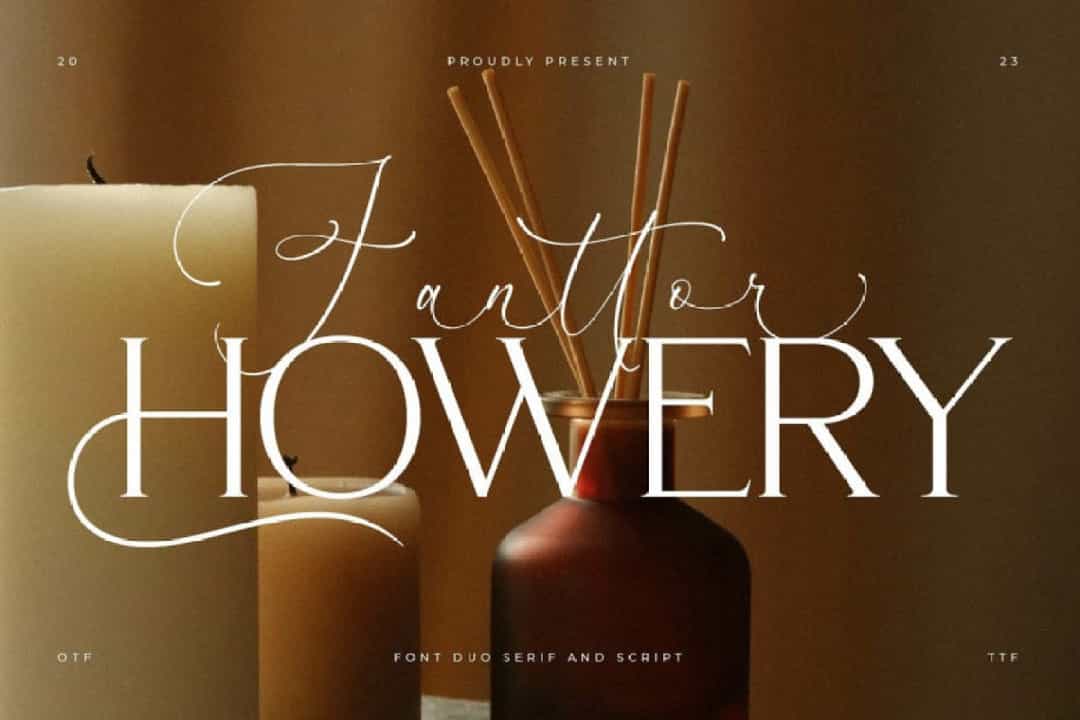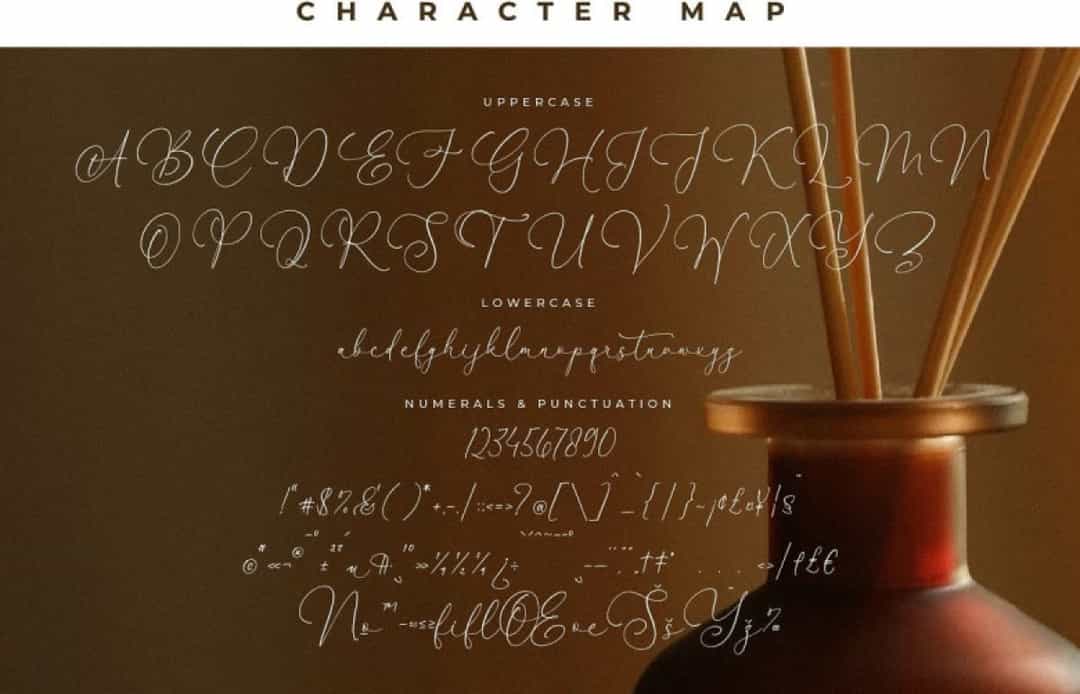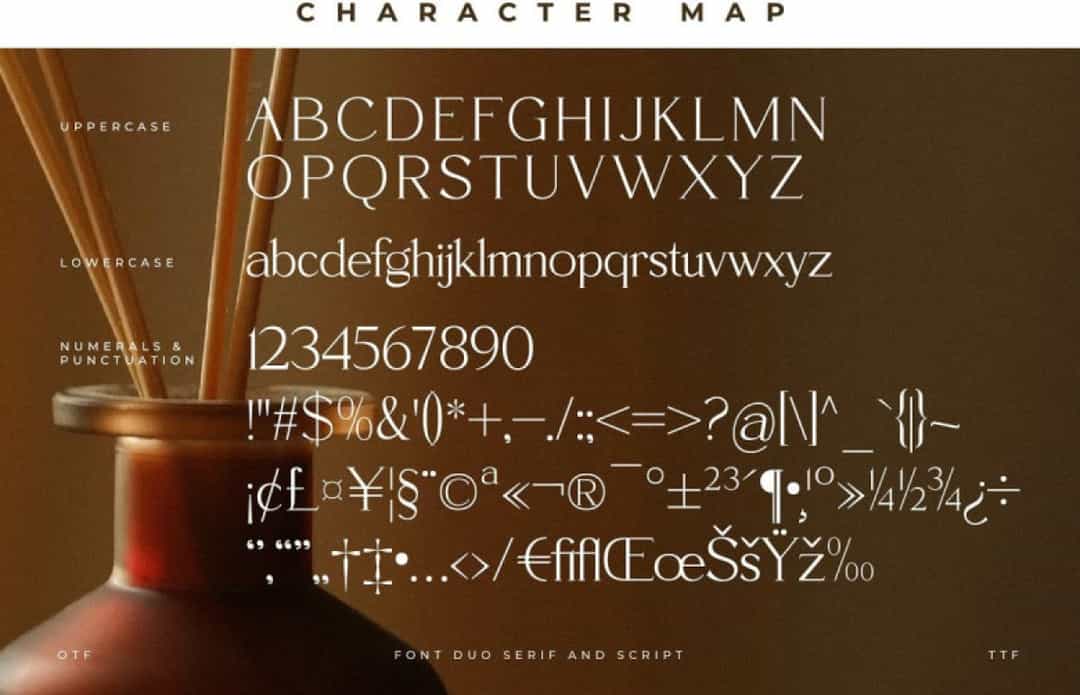
Discover Fanttor Howery Font, part of the Calligraphy Serif collection—a versatile and unique font perfect for adding a personal touch to your projects. Download it for free and enjoy crafting designs with style, from invitations to social media posts. This font is available exclusively for personal use, giving you the freedom to create without limits. Unlock your creativity with Fanttor Howery Font today!
Fanttor Howery Font Duo, an elegant serif and script font with its own distinctive style and contemporary appearance, makes an excellent choice for luxurious and elegant logo designs, books or movies, fashion magazines, clothing lines, letters quotes and other creative projects. This font can also be used for writing letters quotes etc.